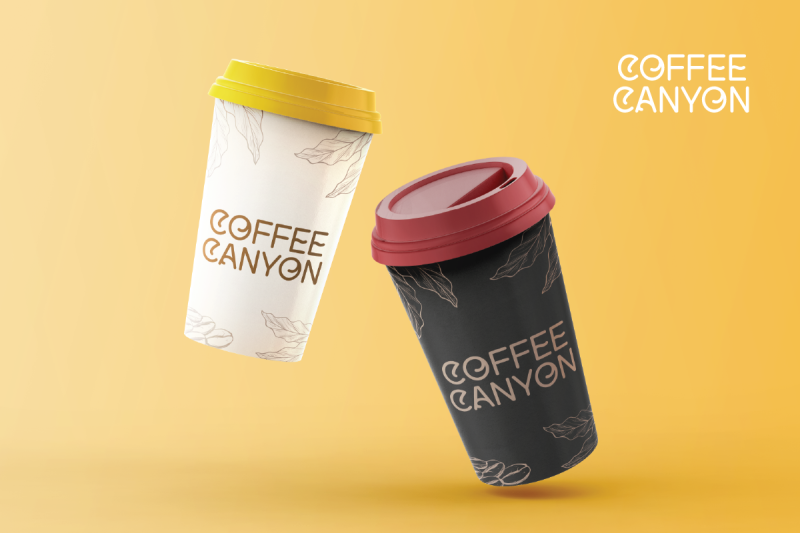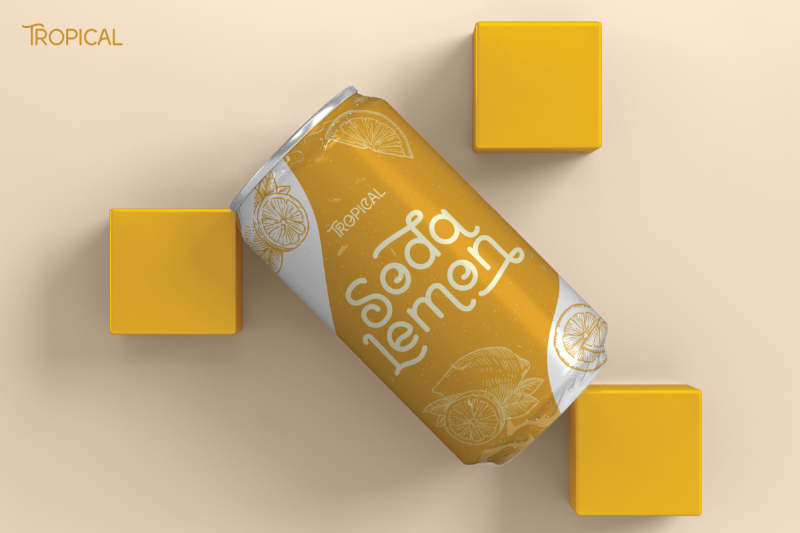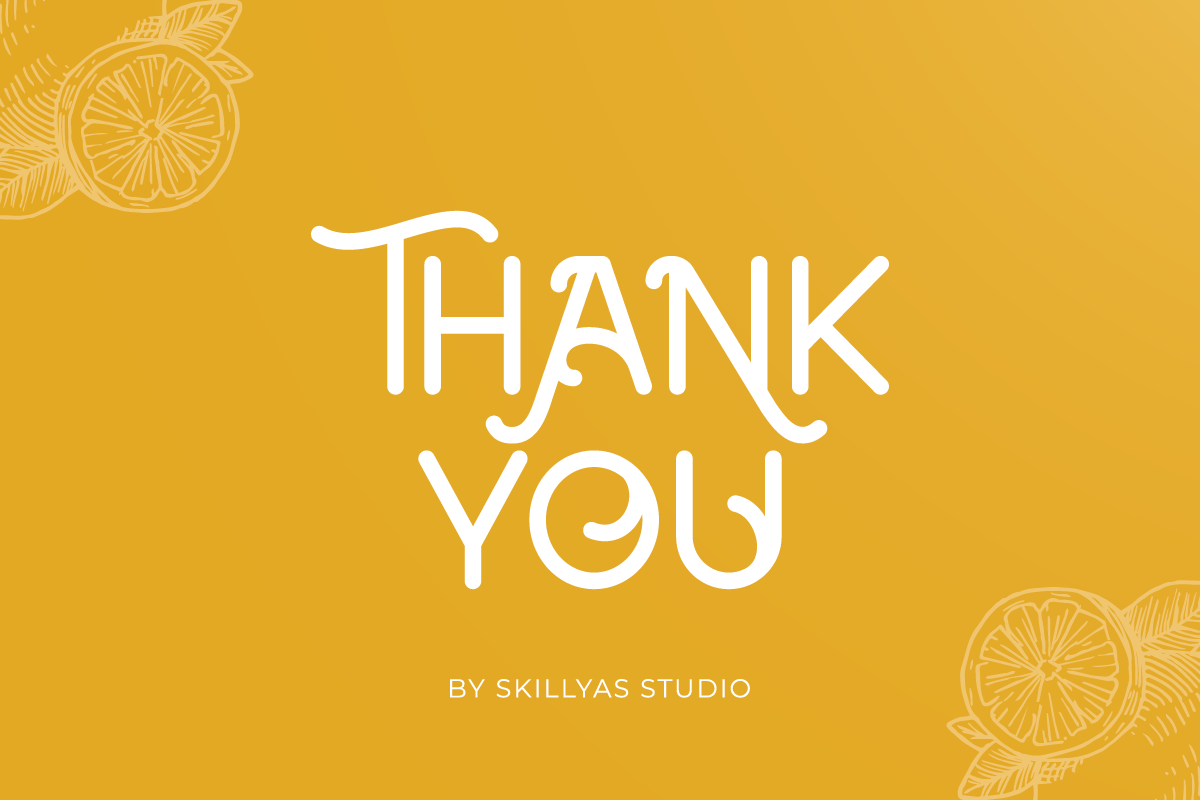
Lemonta is a typeface with a fun vintage look that feels like all the good memories from the past are flooding over you. You can use this for adventure content, instagram feed, holiday banner, food content, or even a logo.
Lemonta is perfect for any design needs: branding, logos, handwritten quotes, product packaging, merchandise, blog design, modern advertising design, invitation, Art Quote, Home decor, Book/Cover Title, Invitation, special events, birthday, custom mug, pillow, and many more.
- Ton of glyphs
- Ligature & Alternate